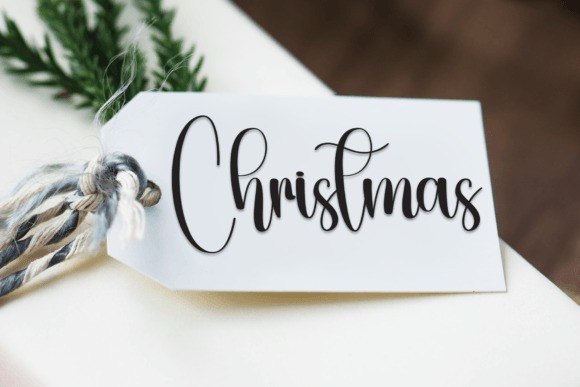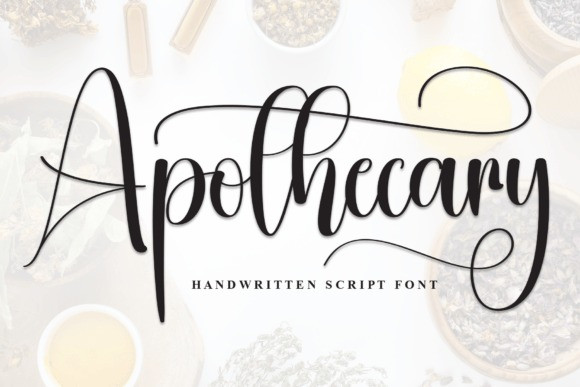
Apothecary Script Font
Apothecary Script Font is a charming handwritten font that looks like it was written with a pen. It has a warm, personal touch, making it perfect for invitations, notes, or any project where you want to add a friendly feel.